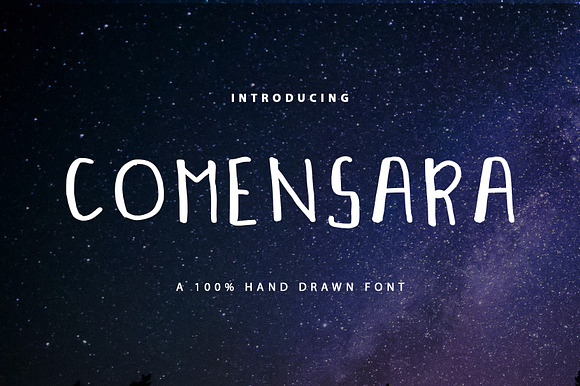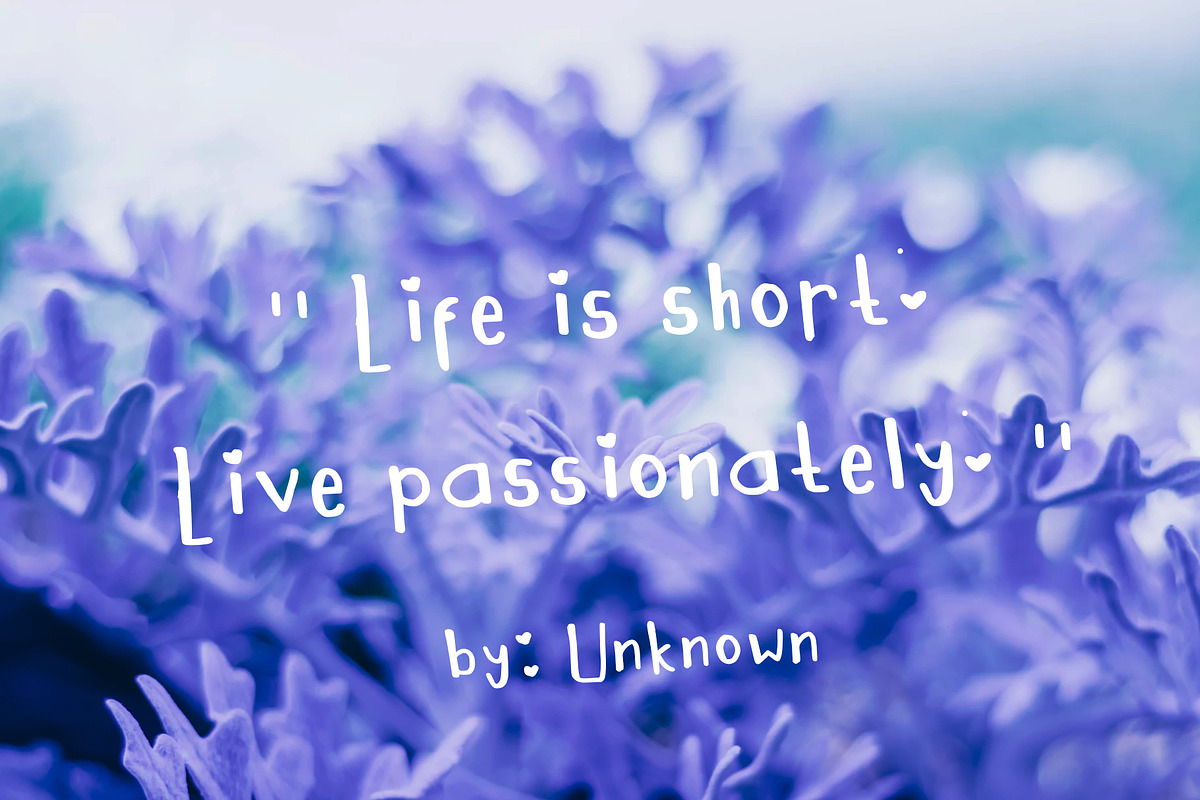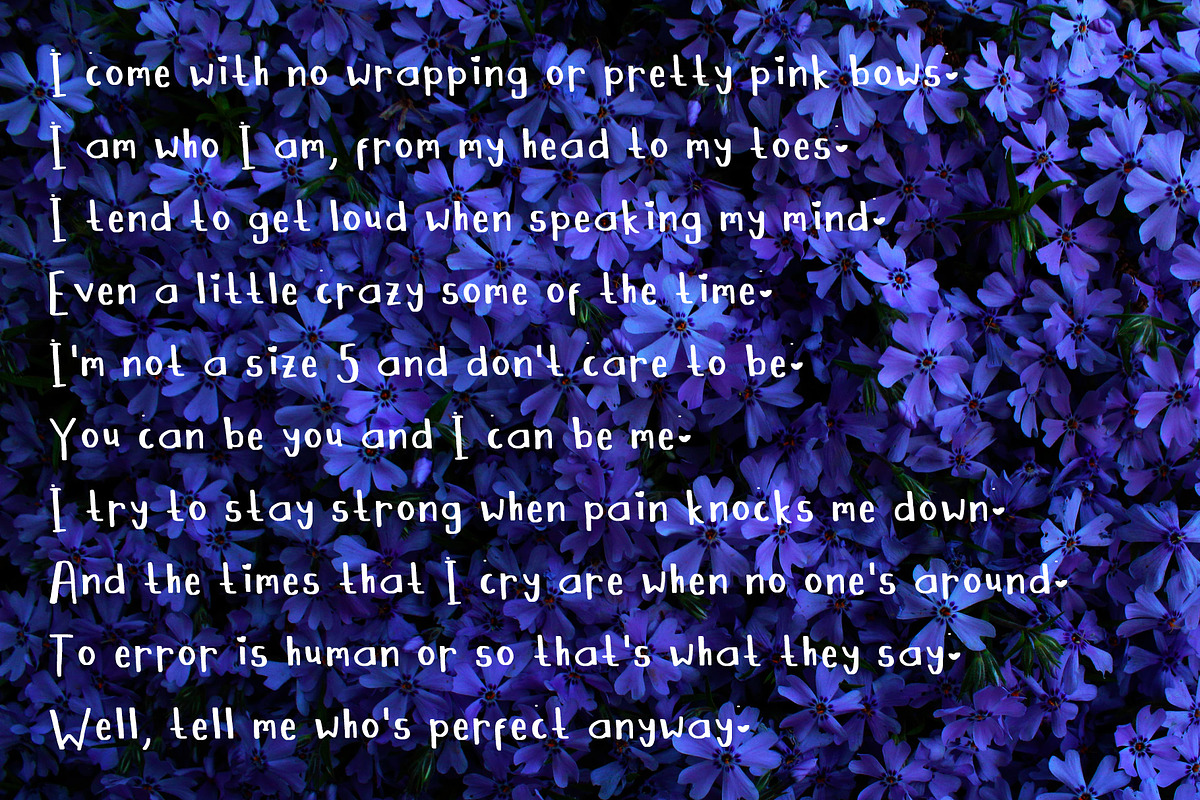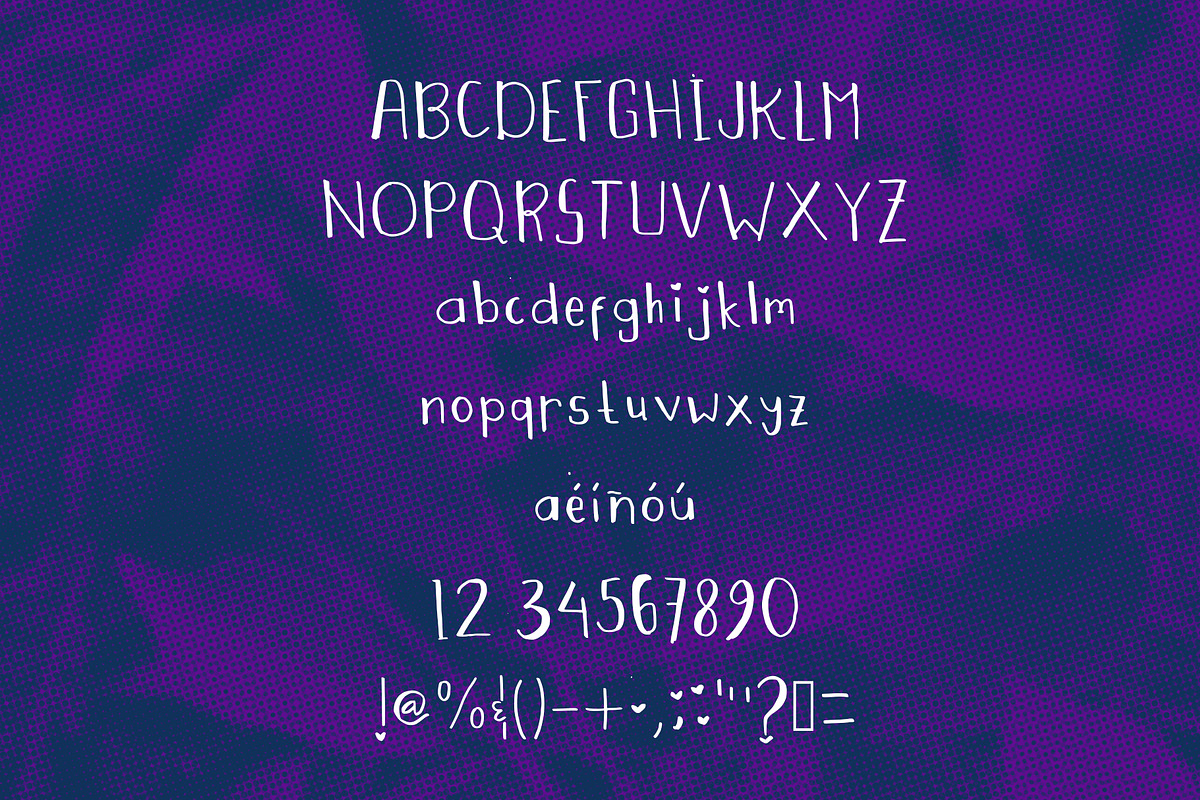
Comensara Font For Book and Poem
Sans serif hand-drawn display font called Comensara was designed for modern, childish, feminine, unique and other style also fit for Kids stories, book and poems.
Comensara Font For Book and Poem by NadaNora fits naturally into Branding, posters, packaging, typography.